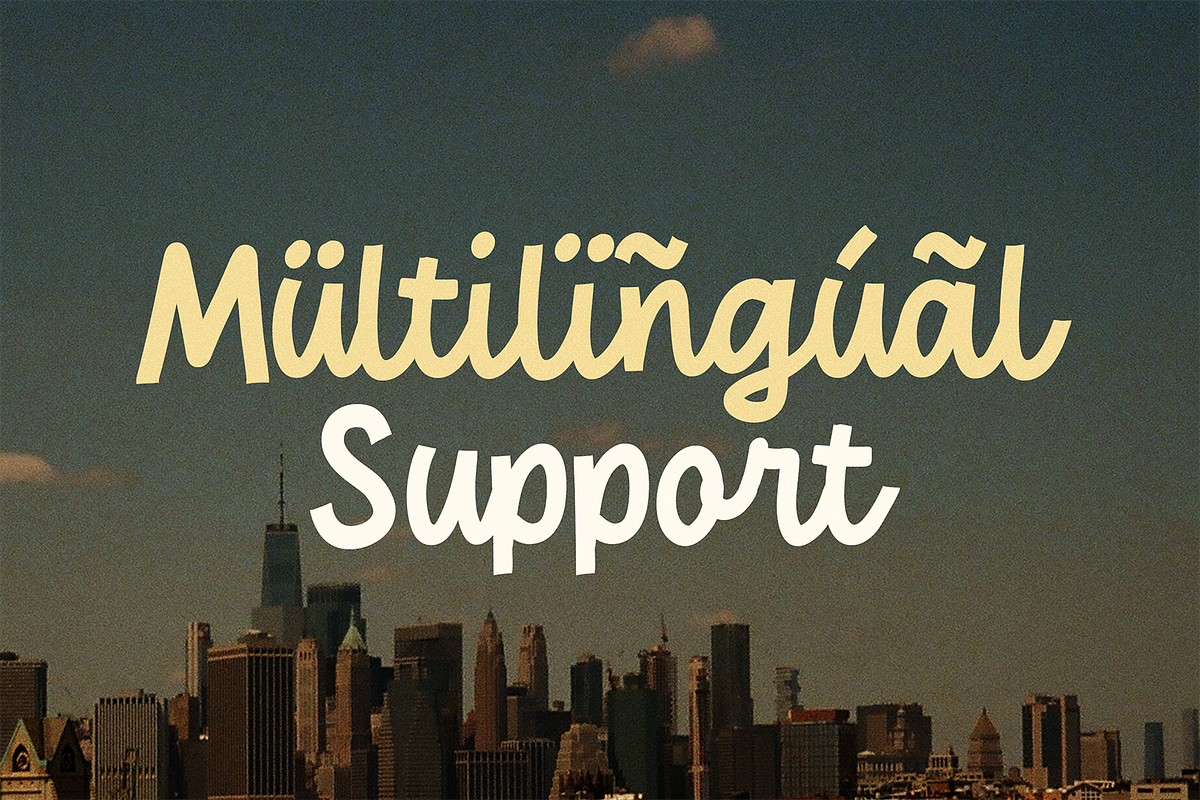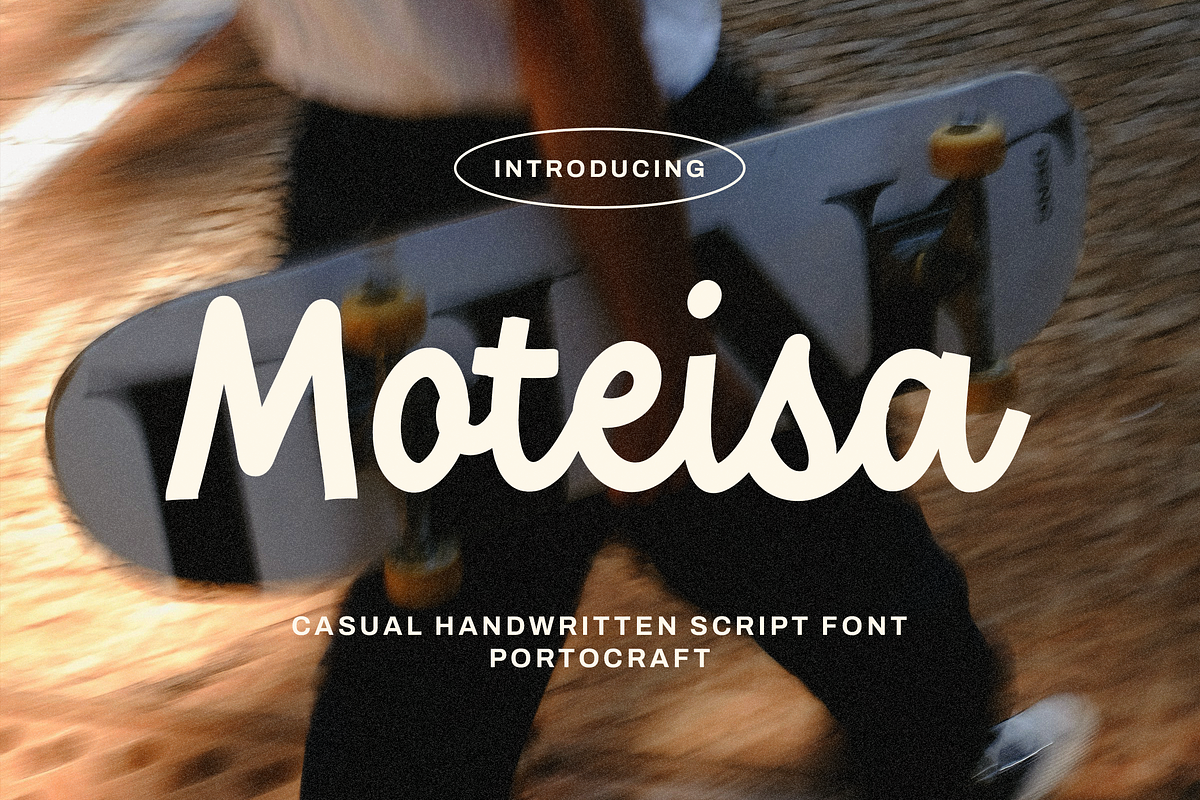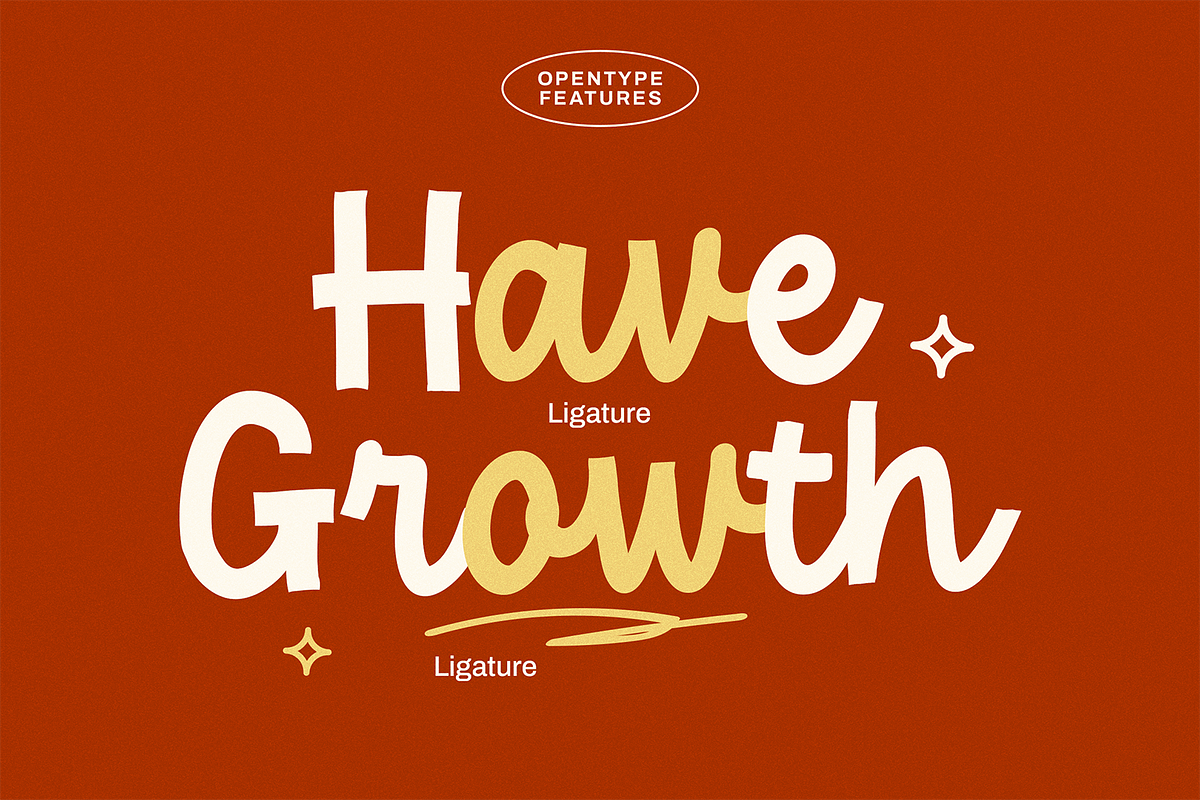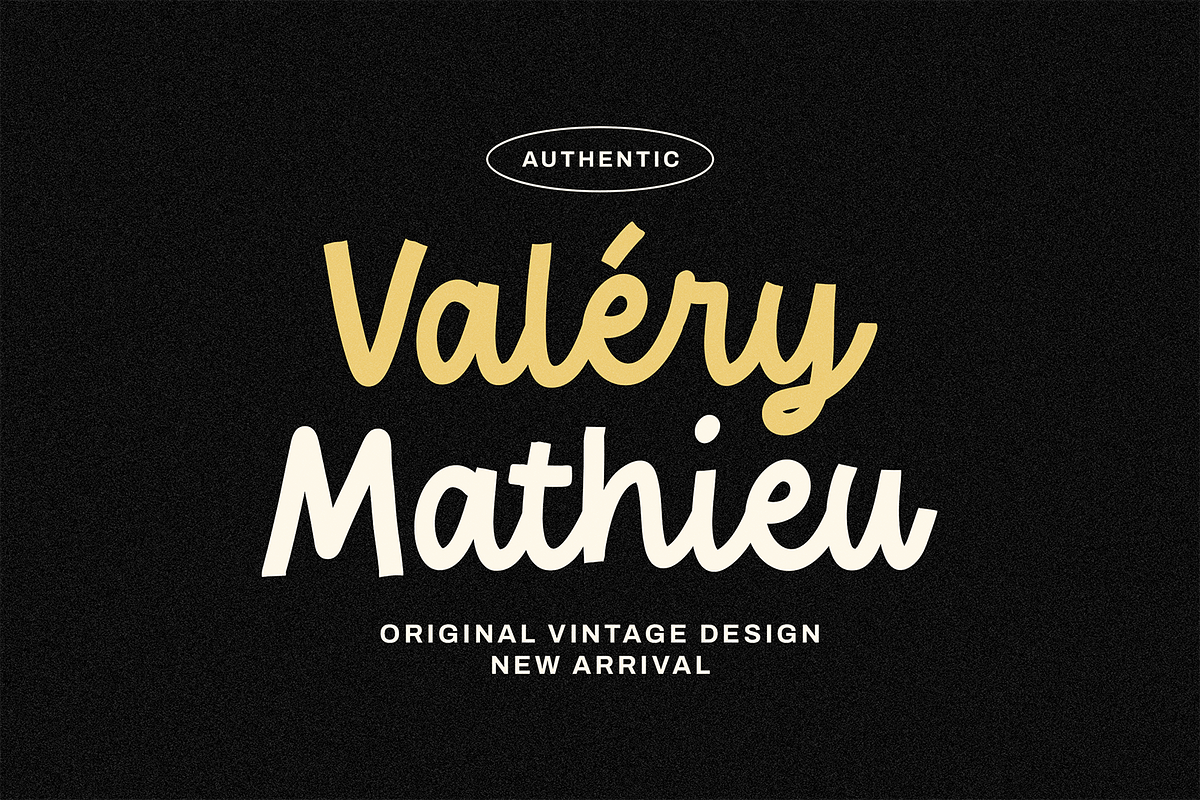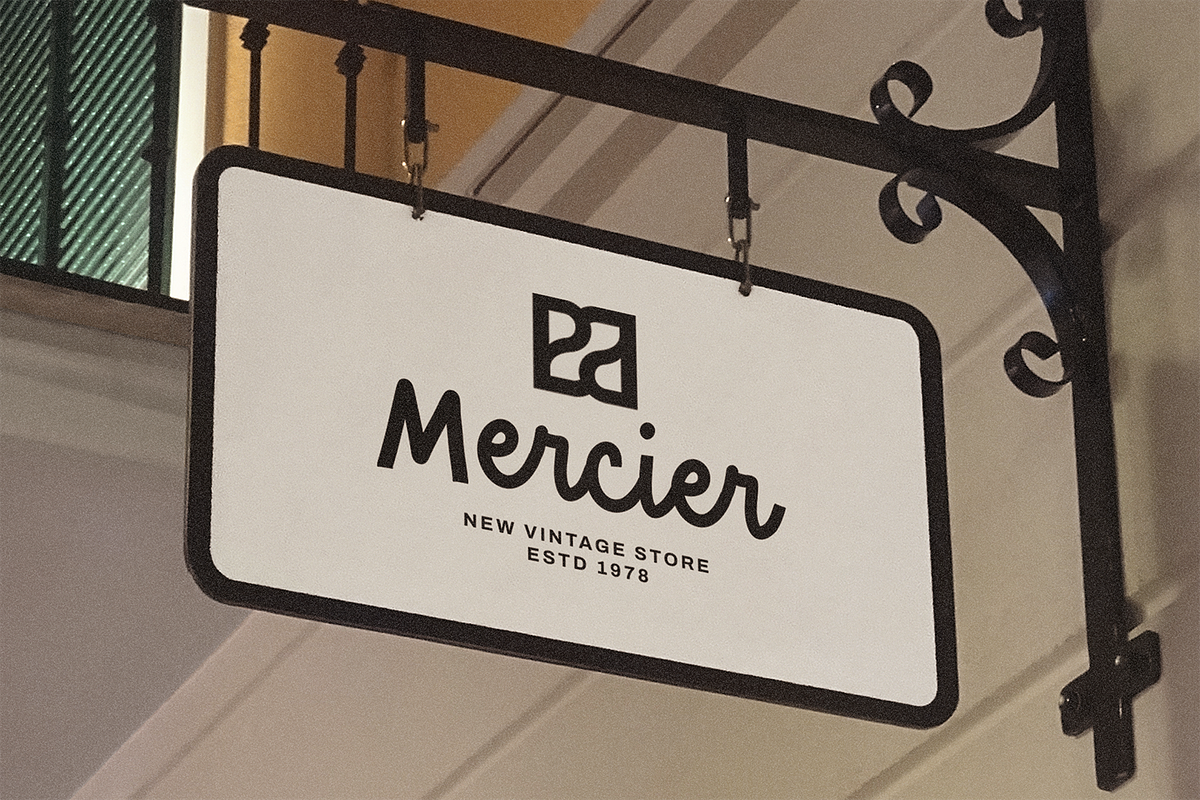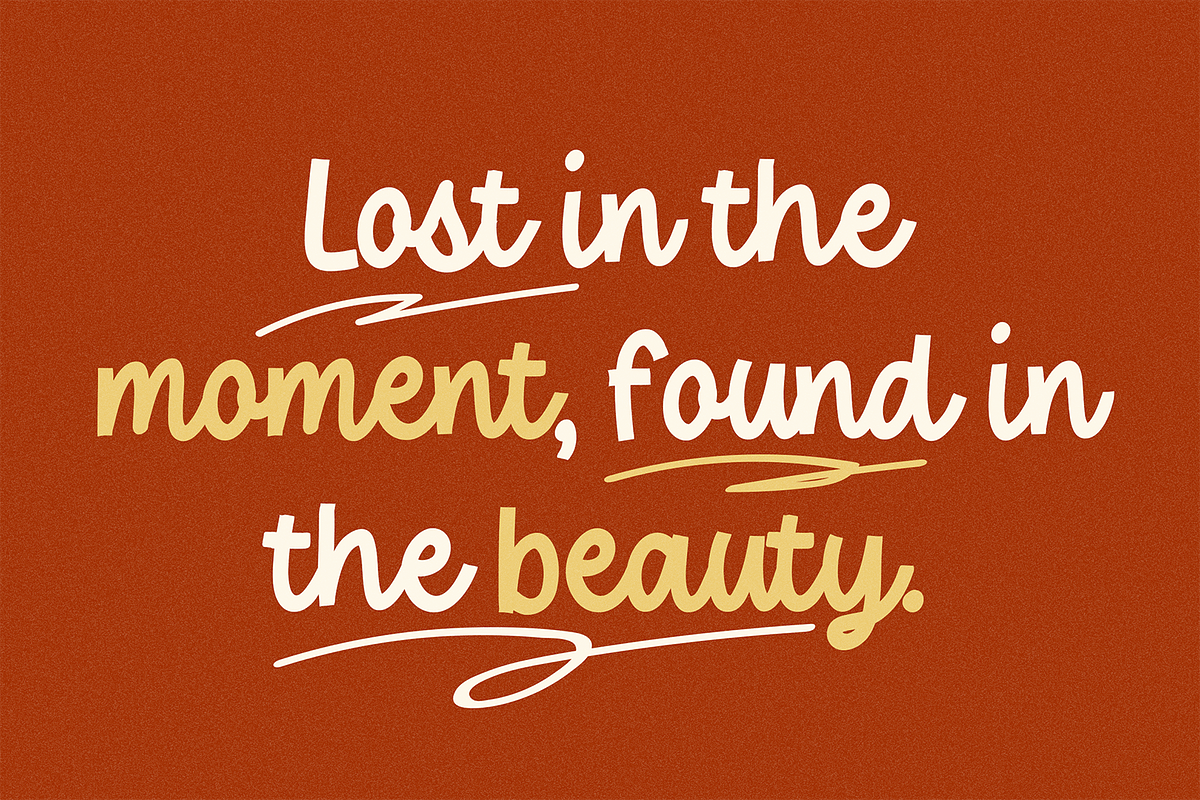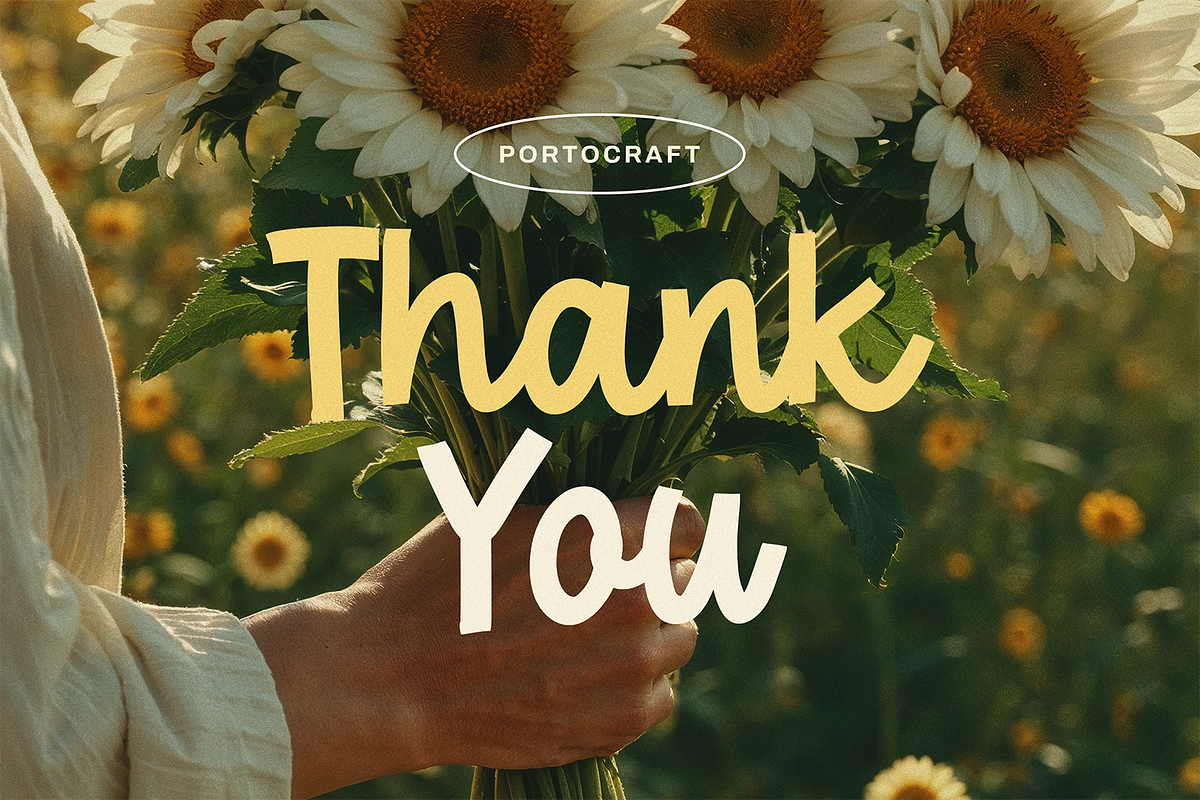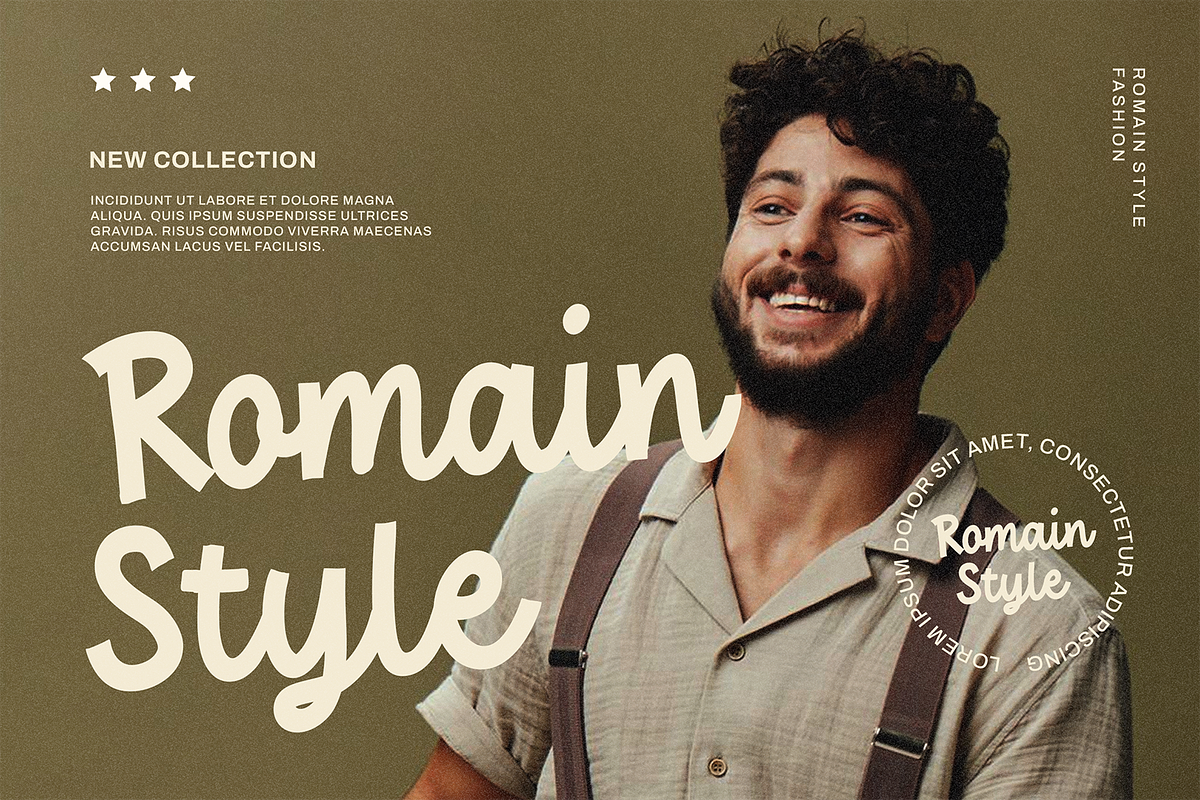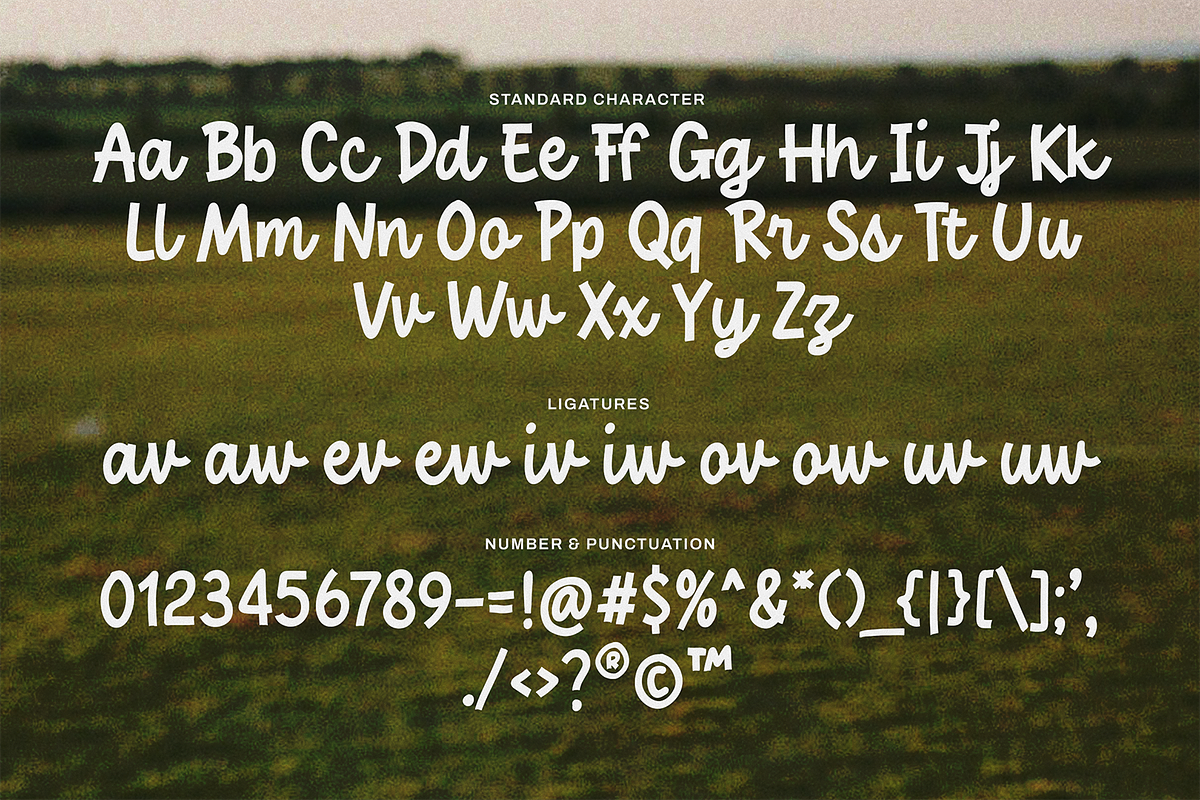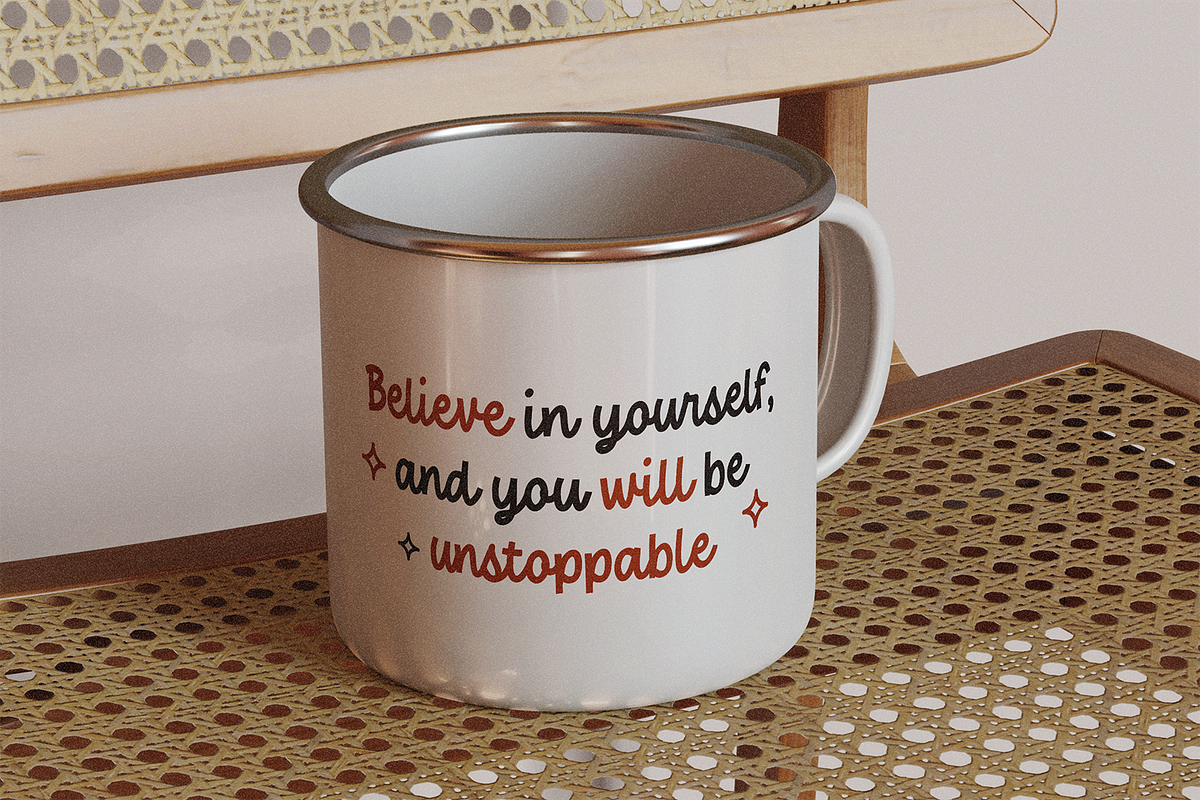
Moteisa Casual Handwritten
Introducing Moteisa, a casual handwritten script font with a clean and modern feel. Its smooth curves and natural strokes bring out a friendly, approachable, yet stylish personality—perfect for projects that need a touch of authenticity and creativity.
This typeface works beautifully for branding, logos, posters, apparel, social media posts, packaging design, invitations, and lifestyle products. With its casual handwritten style, Moteisa adds a sense of warmth and uniqueness to your designs.
Whether you are a designer looking for a modern handwriting font or a brand aiming to highlight authenticity, Moteisa is your go-to choice.